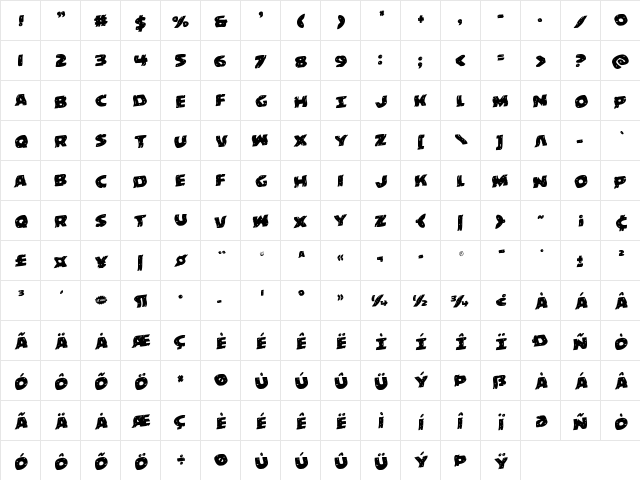
Behemuth Warped Rotalic Italic
Design Context for Behemuth Warped Rotalic Typeface
Behemuth Warped Rotalic is a composed and adaptable typeface that performs quietly and consistently across a wide range of design contexts. Its italic angle brings a sense of urgency and motion to the letterforms.
Pro Tip: Use Behemuth Warped Rotalic for emphasis, pull quotes, and subheadings where its slanted energy can add rhythm to the layout.